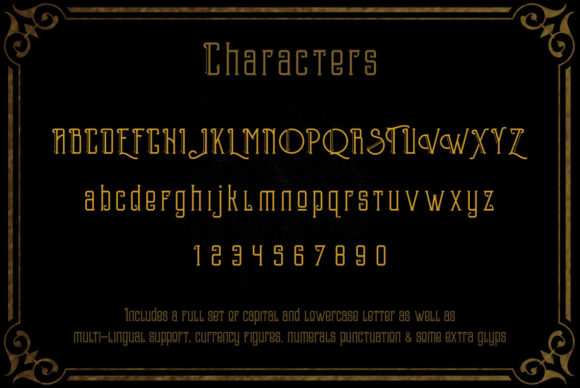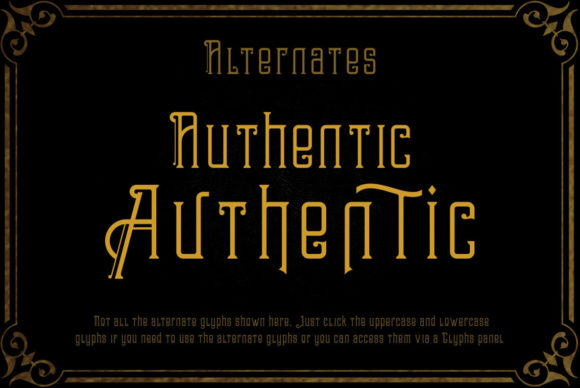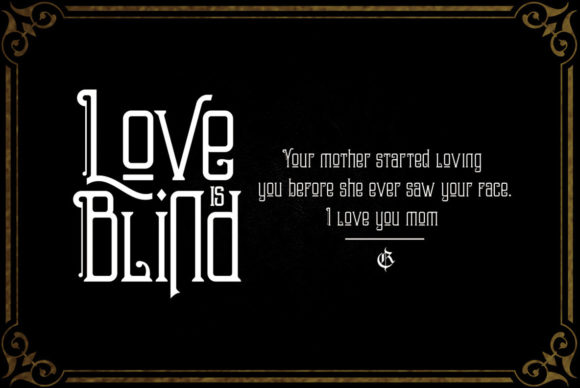
Briliants Font
Briliants is an elegant, thin and delicate display font. It is defined by smooth curves and is perfect for fashion branding or editorial designs. Add it confidently to your projects, and you will love the results.